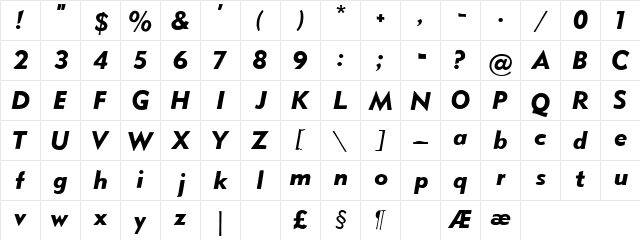
Complete Metro Black Oblique HPLHS glyph index. Displaying only characters natively supported by Metro Black Oblique HPLHS font.
Metro Black Oblique is a composed and adaptable typeface that performs quietly and consistently across a wide range of design contexts. The slanted form adds forward momentum and visual energy.
Pro Tip: Use Metro Black Oblique for emphasis, pull quotes, and subheadings where its slanted energy can add rhythm to the layout.